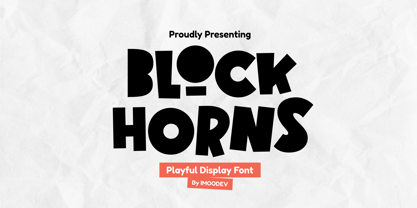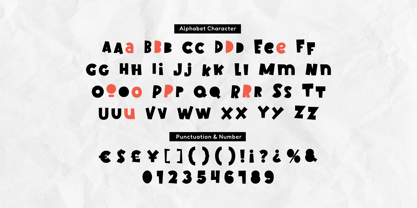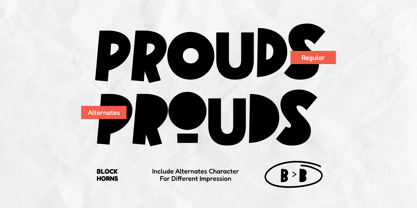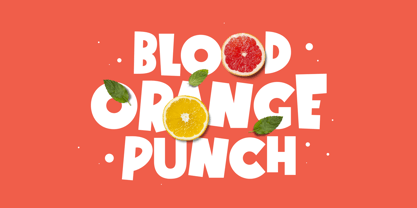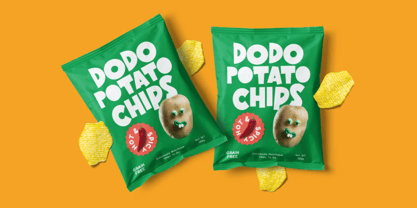
Block Horns
by Imoodev
The Block Horns Font Family was designed by Aulia Savira Putri and published by Imoodev. Block Horns contains 1 styles. More about this family
Block Horns is a playful and bold display font characterized by thick, heavy-weight strokes and playful geometric shapes. The letters feature rounded edges combined with bold, blocky structures and creative, exaggerated elements that emphasize a fun and energetic vibe. It's perfect for capturing attention in playful branding, children's products, food or beverage branding, cartoon-related designs, posters, children's books, and titles needing a strong yet whimsical presence.
Designers: Aulia Savira Putri
Foundry: Imoodev